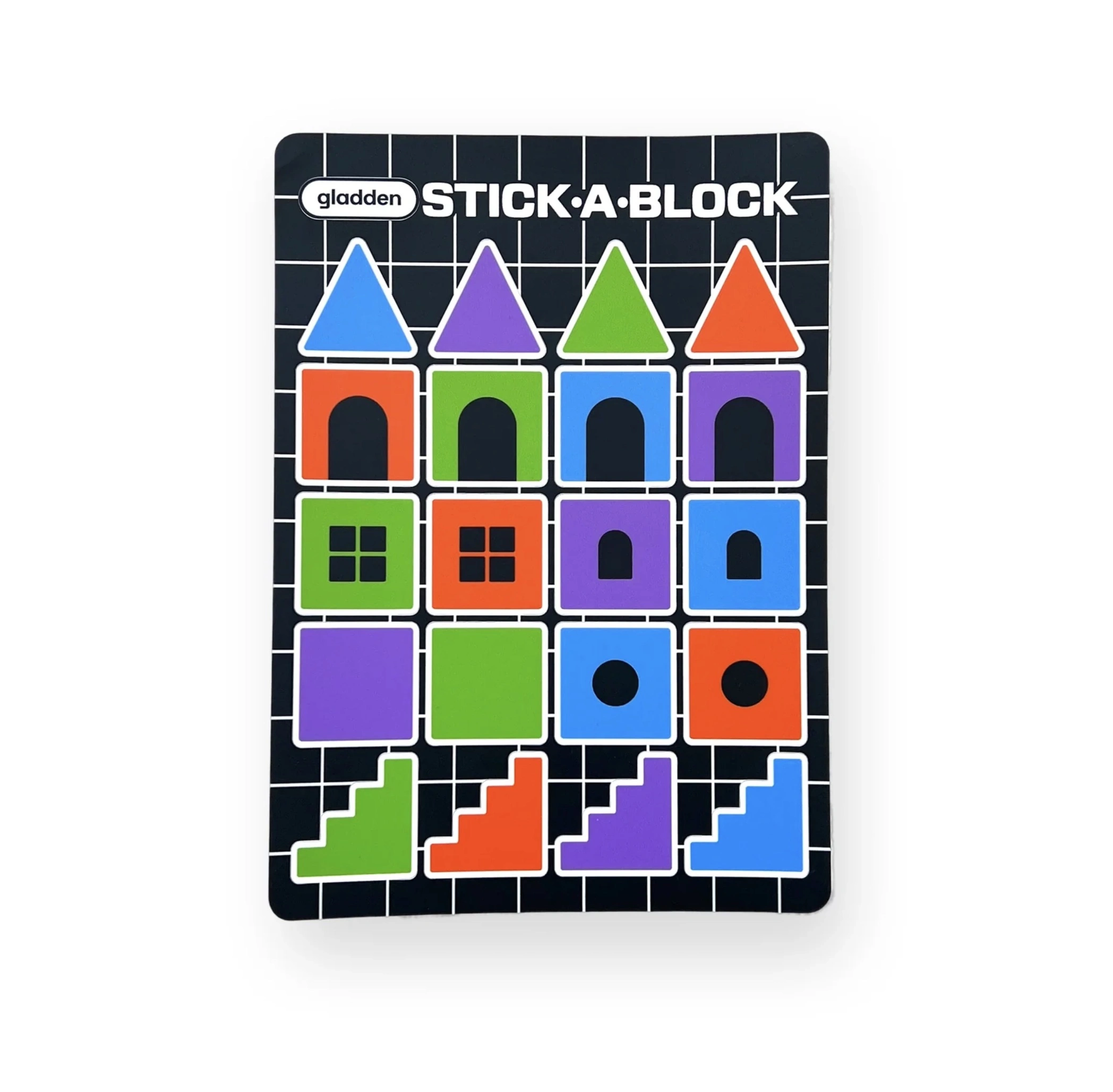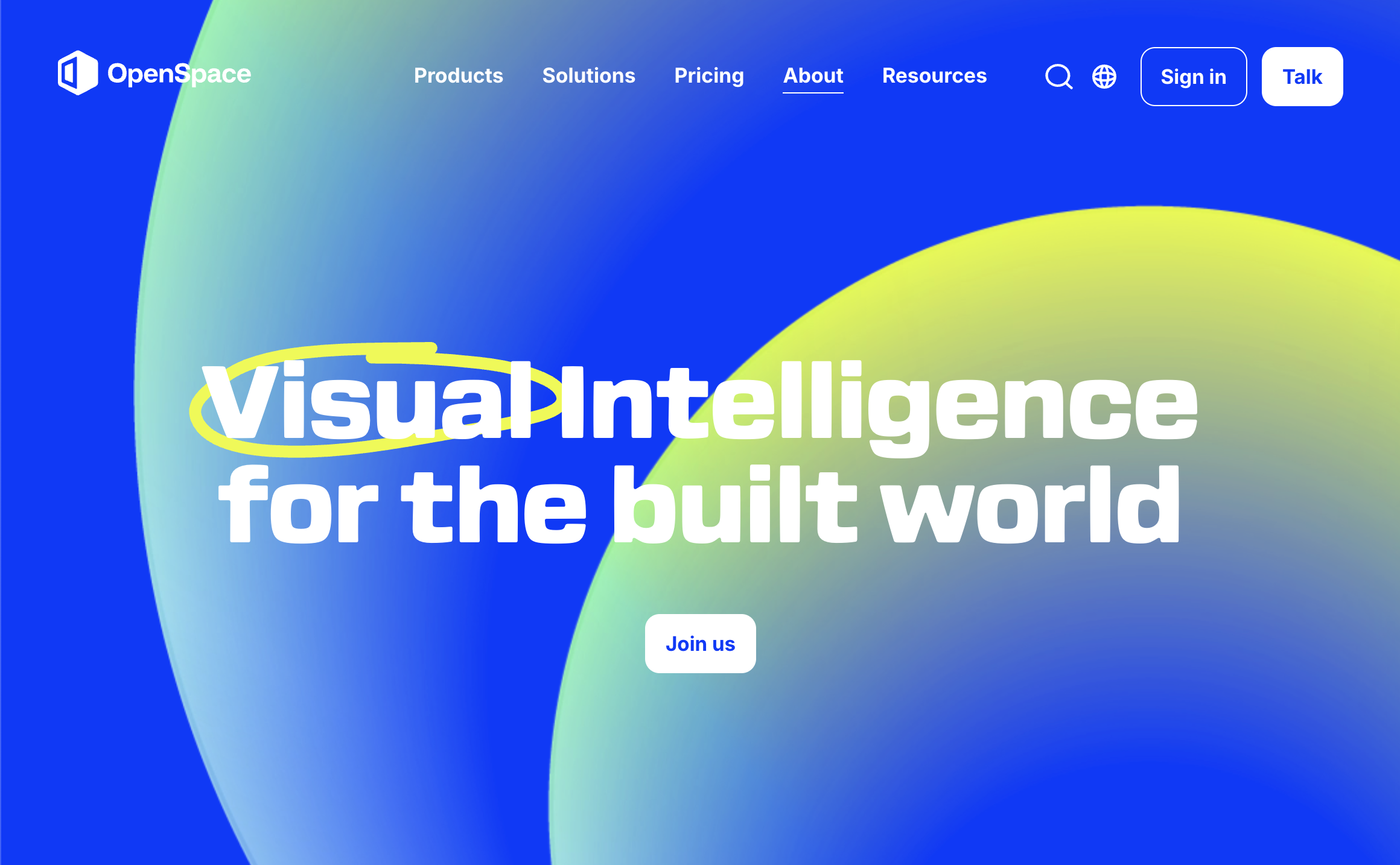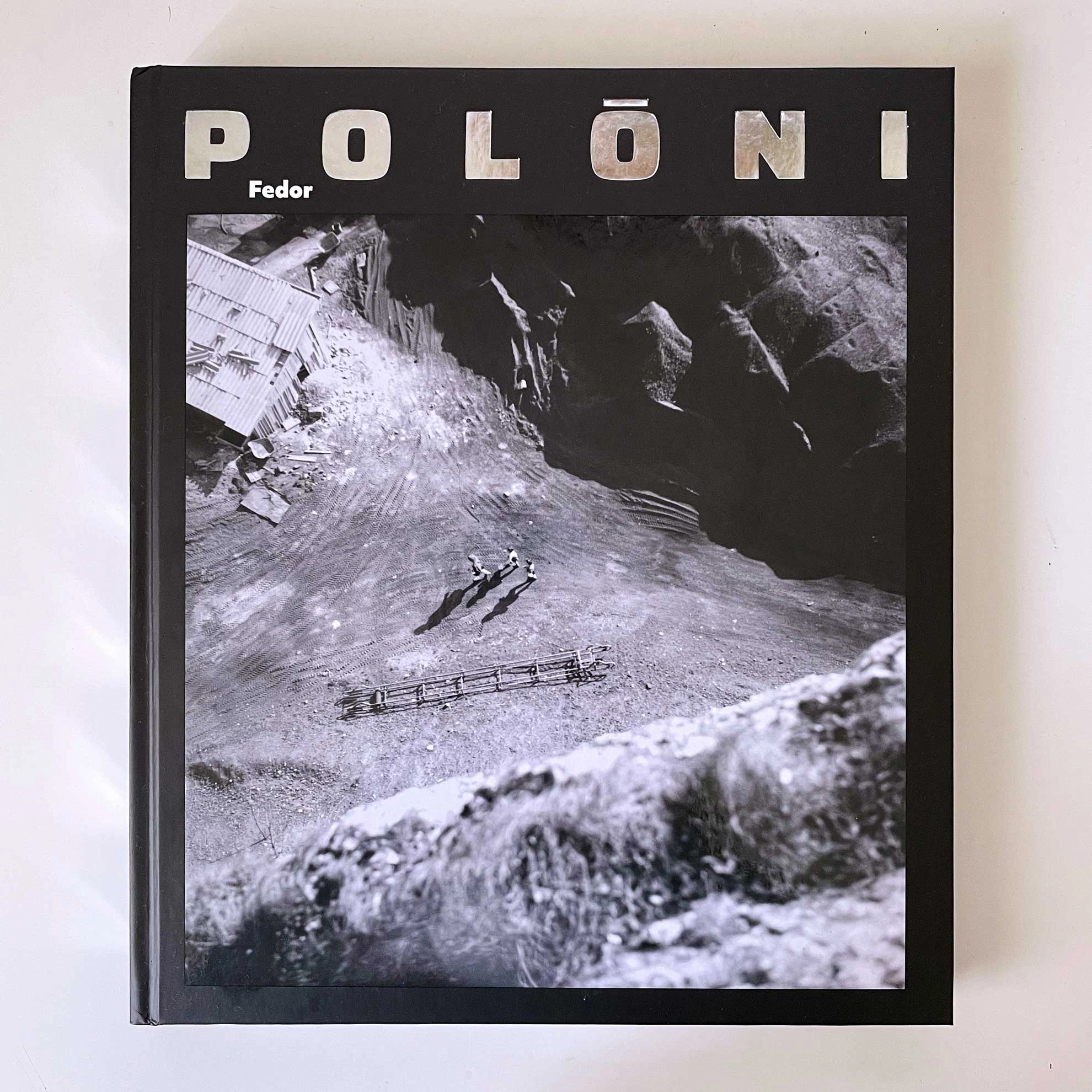
Gosh
Gosh is a soft, square sans. It feels like you swear you’ve seen it before. Inspired by Microgramma or Eurostile when printed and tightly spaced. Everything about Gosh is boxy, but nothing about it is sharp.
It’s called Gosh, because, sheesh, there’s somethin’ so darn obvious about it.
Designer
Kyle Benson
ss01
Single story g
Eggs
ss02
Flat r
Granite
ss03
Flat t
Later
ss04
Single story a
Sauce
ss05
Q bottom tail
Quack
ss06
Q angled tail
Quilt
ss07
R with kick
Risky
frac
Fractions